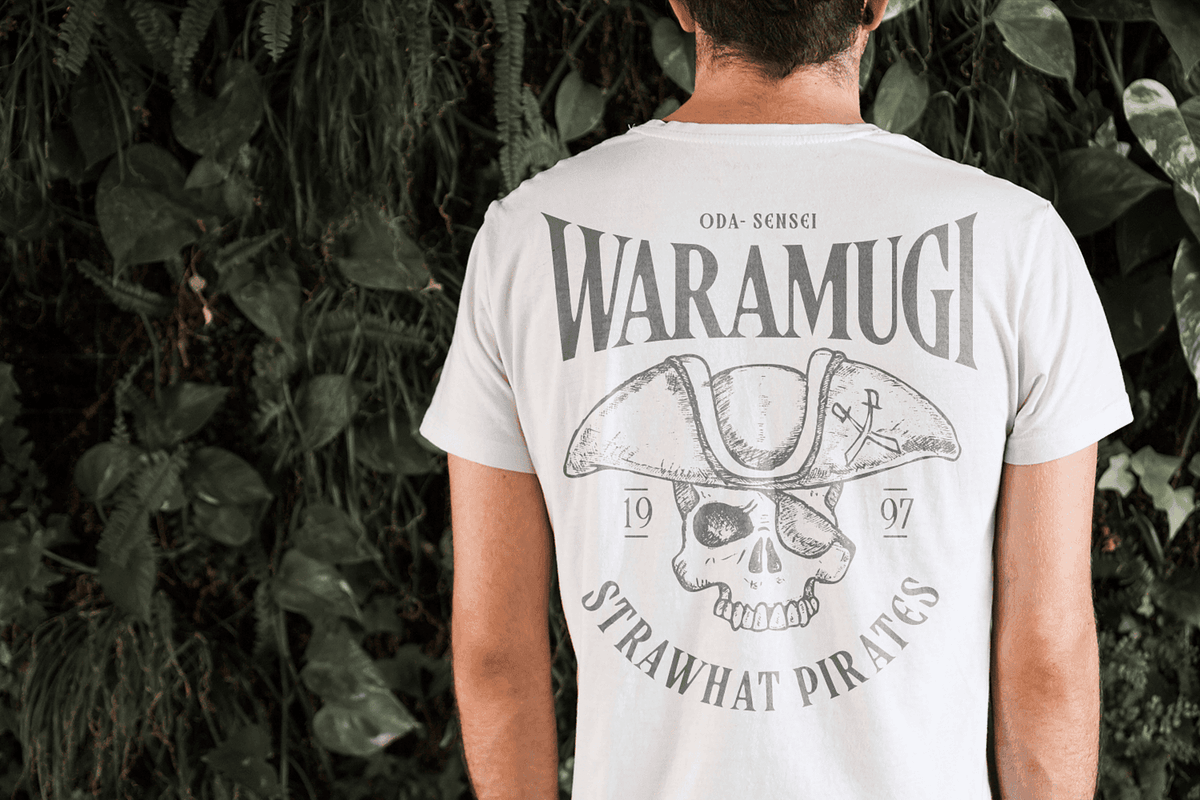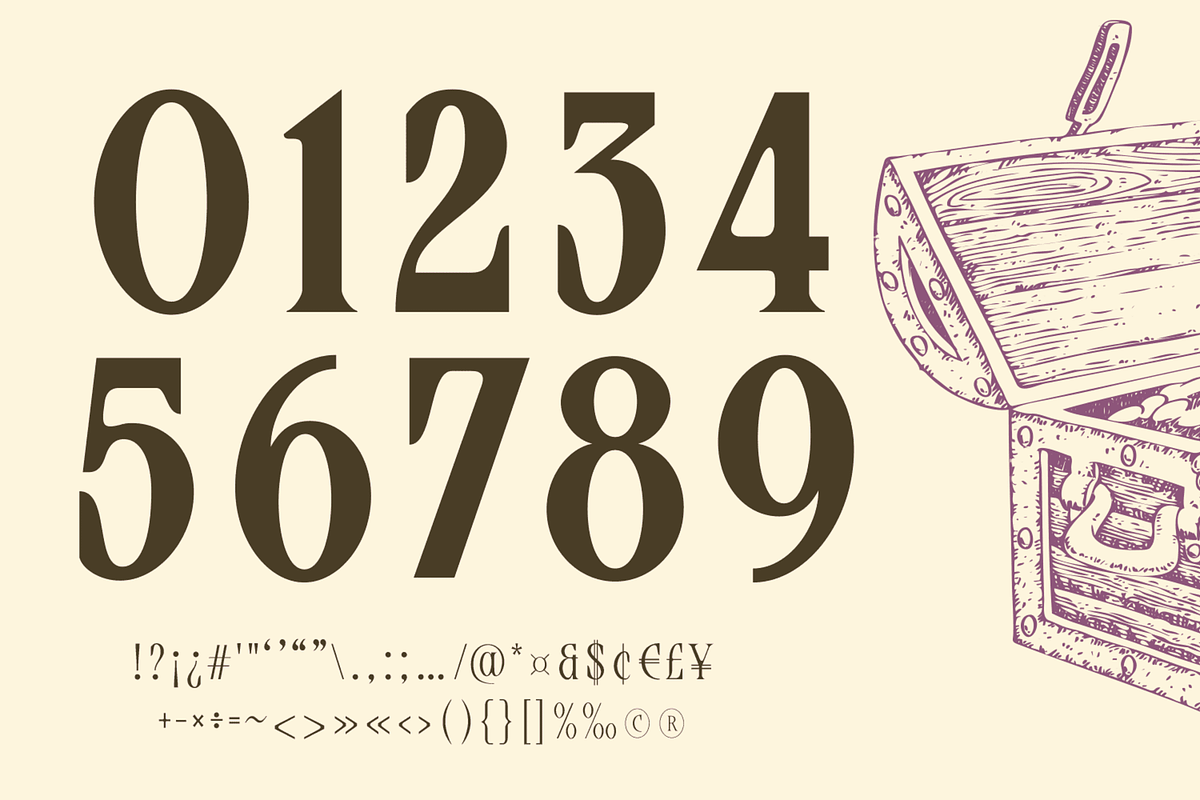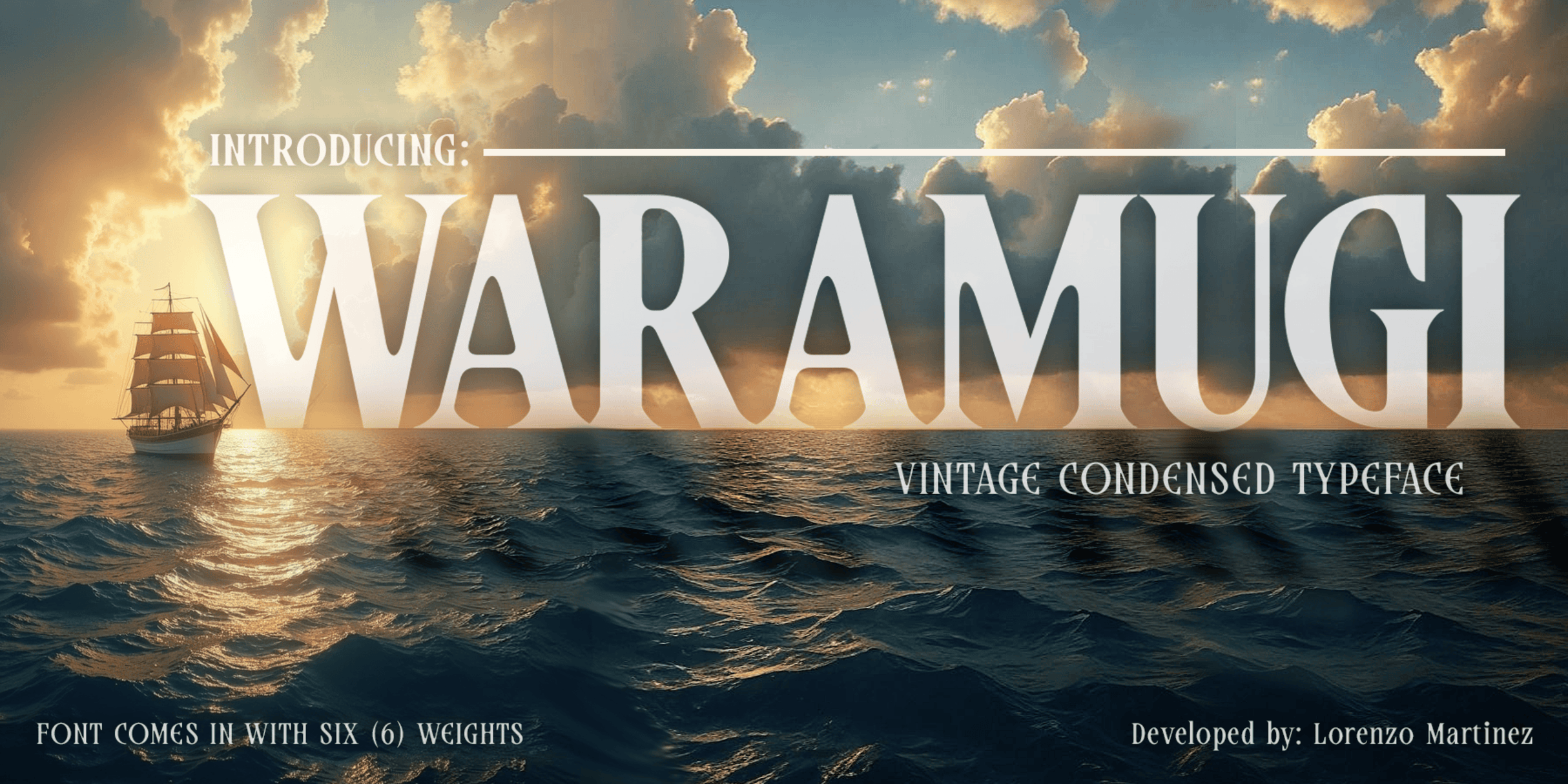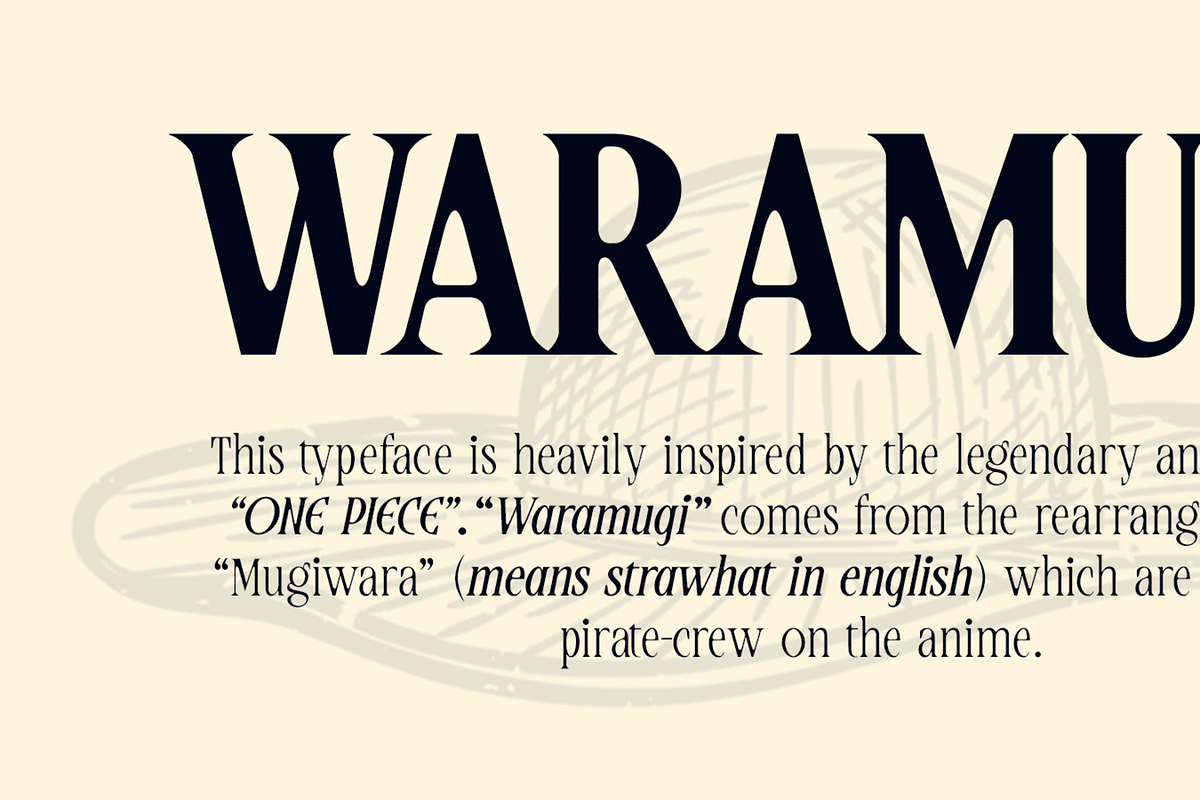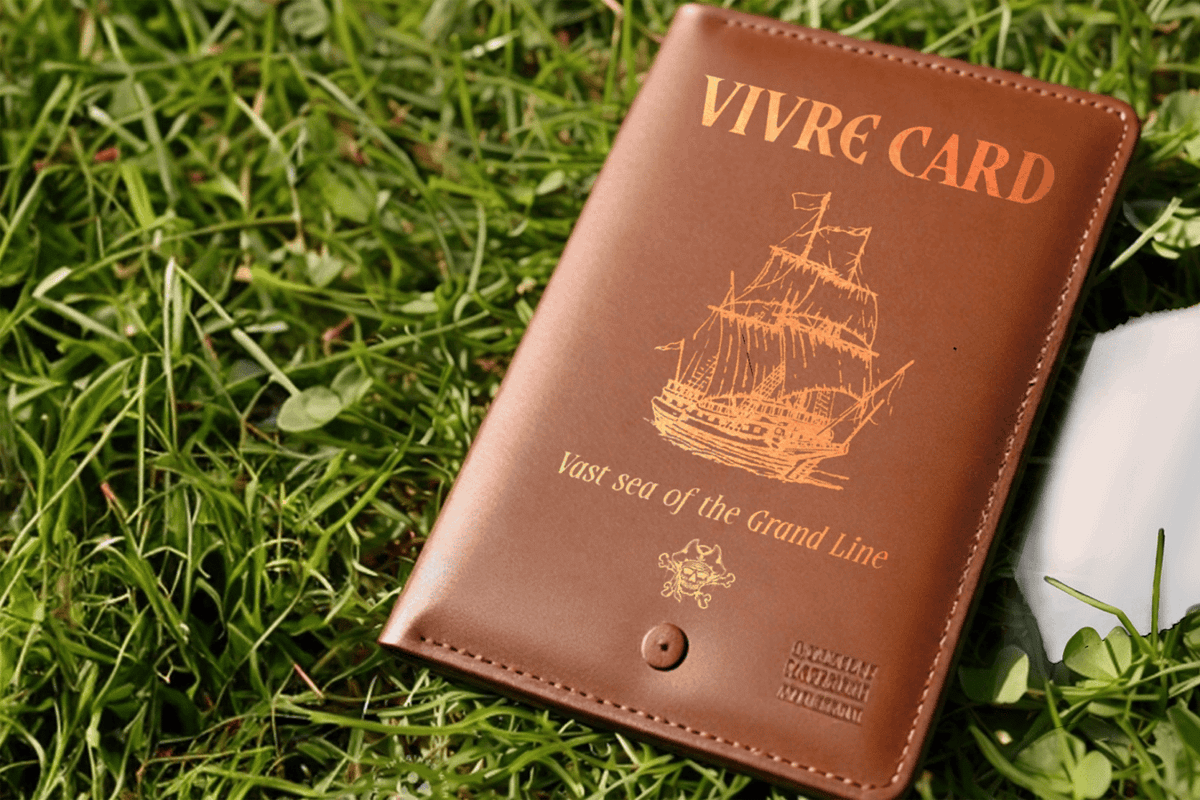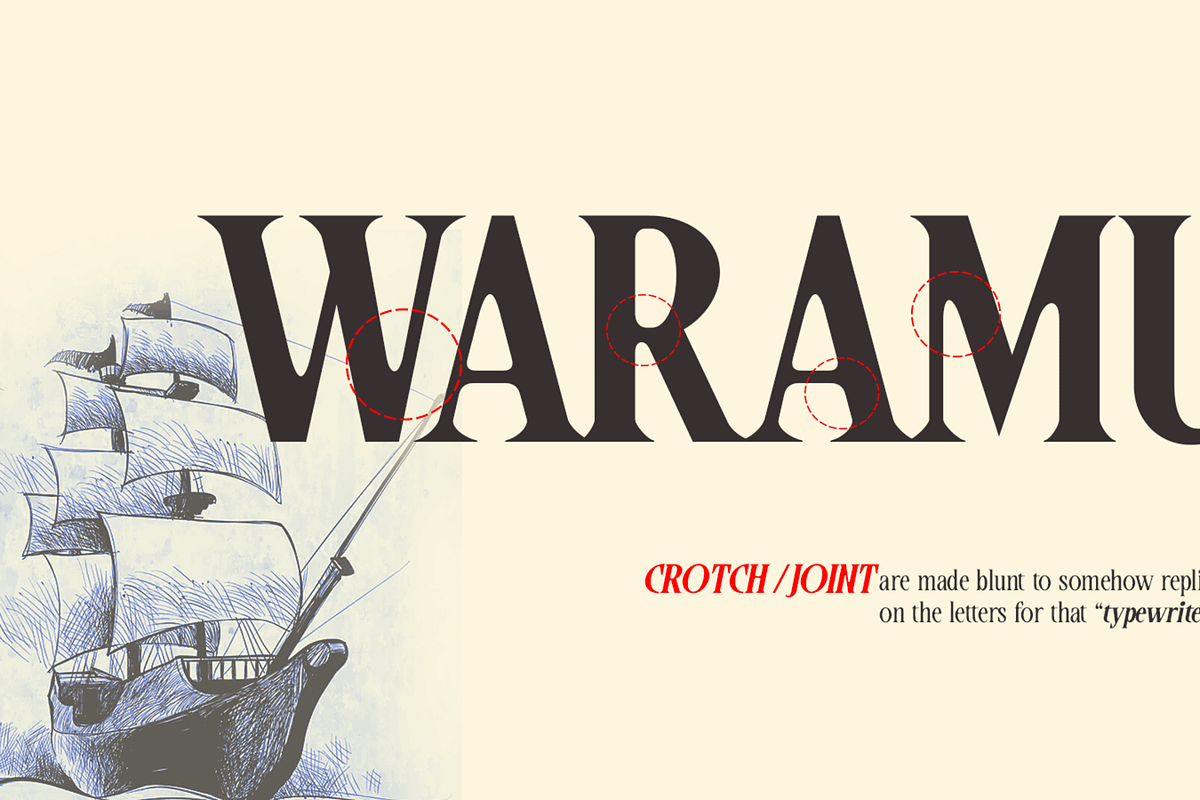
Waramugi- Vintage Condensed Typeface
"Waramugi" is a vintage condensed typeface with a mixture of "typewriter vibes" that is inspired by the legendary anime called "One Piece"
Waramugi was developed to function in all kinds of media. Its subtle character gives way to its versatility as both a workhorse and a display typeface.